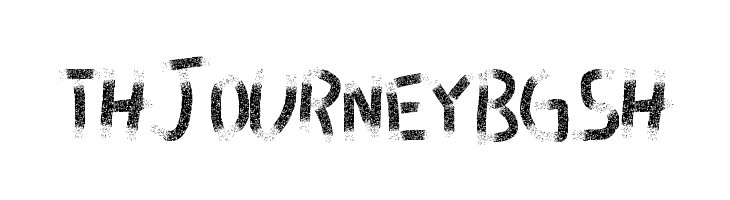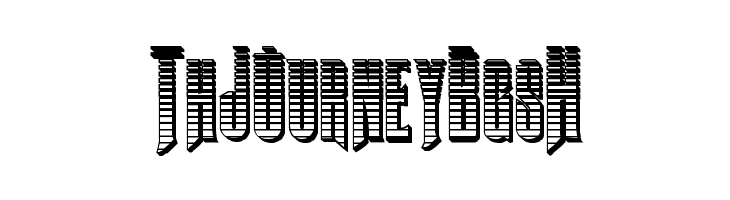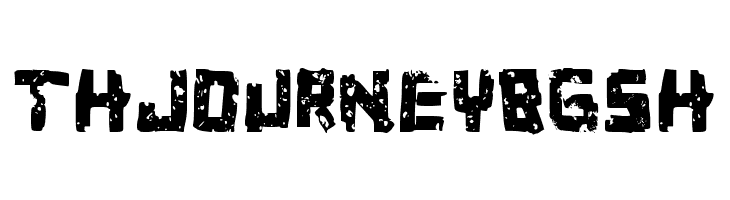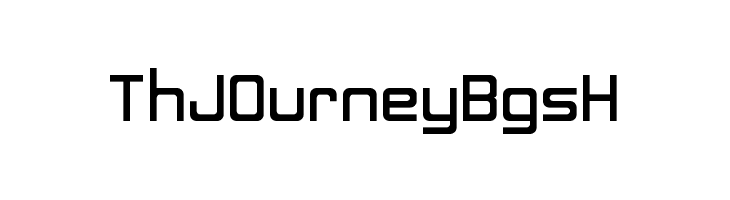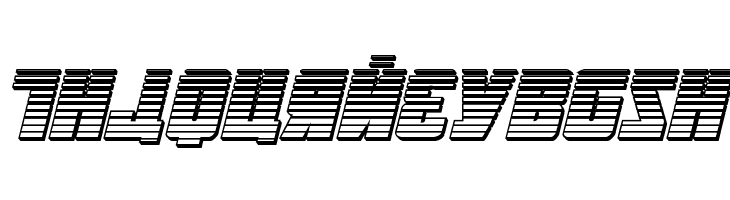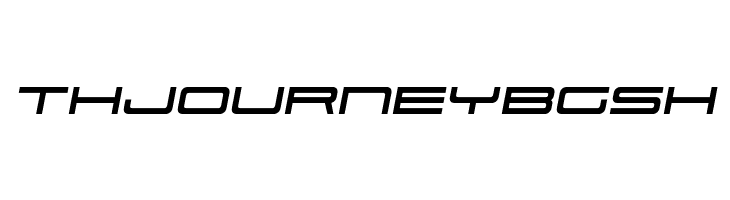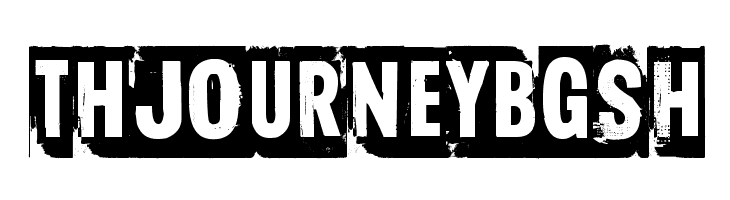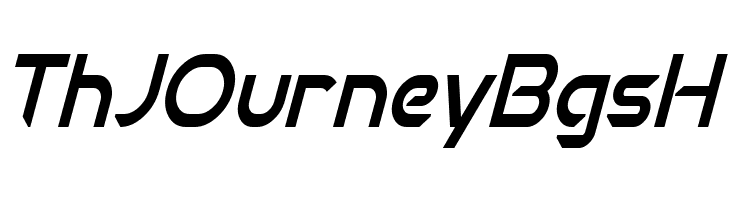
A bold, decorative font with a three-dimensional, chrome-like effect.
A bold, distressed font with a grunge, urban aesthetic.
A futuristic, geometric font with clean lines and squared edges.
A bold, chrome-like italic font with a three-dimensional, futuristic design.
A sleek, semi-italic font with a modern, futuristic design.
A bold, distressed stencil font with a gritty, urban aesthetic.
A sleek, modern, condensed italic font with sharp angles and dynamic style.